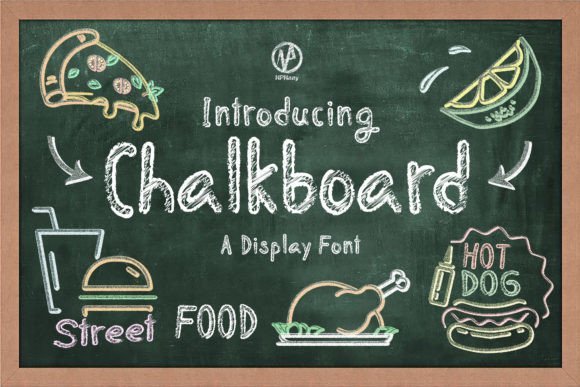
The Charm of Handwritten Design: Discovering the Chalkboard Font
Who hasn’t scribbled out a quick to-do list or doodled a favorite quote on a chalkboard at some point? There’s something undeniably charming about the imperfections and character of handwritten text. Whether you’re a seasoned designer or a crafty enthusiast, you’ll love the endearing feel of the Chalkboard Font. This delightful, handwritten font is the perfect way to add a personal touch to any project, from digital designs and presentations to handmade cards and DIY crafts.
For designers, the Chalkboard Font is a valuable tool for creating visually appealing and engaging content. Its friendly, approachable style makes it an ideal choice for branding, advertising, and educational materials. Whether you’re looking to add a touch of whimsy or convey a sense of warmth and approachability, the Chalkboard Font is sure to captivate your audience.
- Unique Characteristics: The Chalkboard Font is designed to mimic the look of chalkboard writing, with imperfections and texture that give it a nostalgic and educational feel.
- Font Style: The font is available in regular and bold styles, allowing users to choose the right weight for their design needs.
Chalkboard Font Review
Overall, I think the Chalkboard Font is a fun and playful choice for designs. ✨ The distressed texture and vintage feel make it perfect for creating a sense of nostalgia or whimsy in your projects.
- The font’s imperfections, such as the uneven letters and rough edges, add to its charm and give it a unique character. ✨
- It’s highly legible, even at smaller font sizes, which makes it a great choice for body text or headings. ✨
- The font is available in a range of weights, from light to bold, which provides flexibility for different design applications.
However, there are some limitations to consider. ⚠️ The font may not be suitable for formal or professional designs, as its playful nature can come across as unprofessional.
- The font’s texture can be distracting if used in large blocks of text, so be sure to balance it with other design elements. ⚠️
- Some users may find the font’s imperfections difficult to read, especially if they’re not familiar with the distressed texture. ⚠️
In conclusion, the Chalkboard Font is a great choice for designs that require a playful, vintage feel. Just be sure to use it thoughtfully and in moderation to avoid overwhelming the viewer.
For a more authentic look, experiment with different font sizes and colors to mimic the rough, hand-drawn feel of a chalkboard.
Chalkboard Font is ideal for:
- Education and learning materials.
- Event signage and invitations.
- Food and beverage menus.
- Decorative headings and titles.
Remember to experiment with different font sizes and colors to achieve the desired effect.